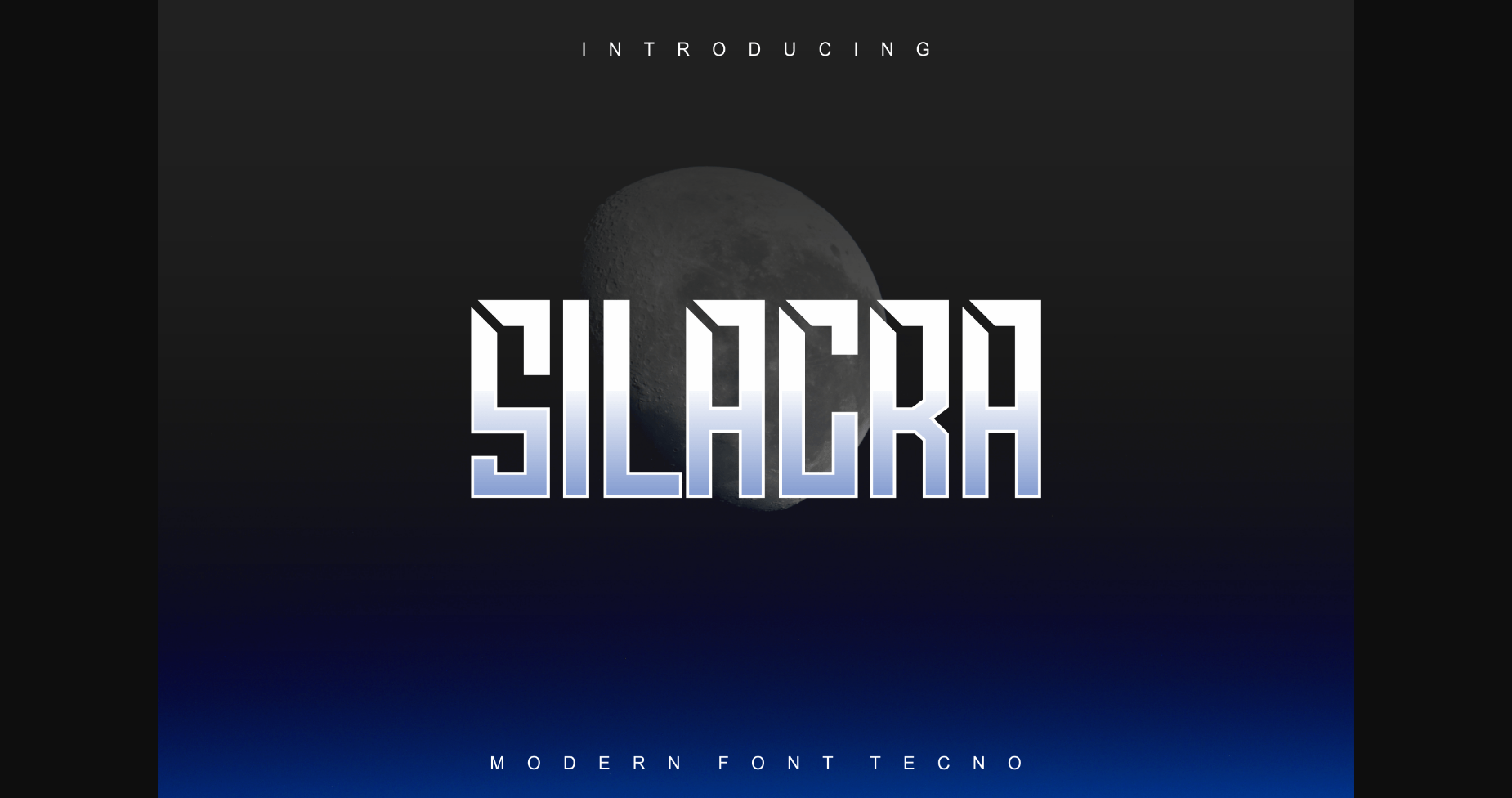
Silacra Font
About Silacra Font
Silacra is a modern, bold, and authentic sans serif font suitable for any branding project like logo, t-shirt printing, export, and many more. It will look outstanding in a wide range of contexts.